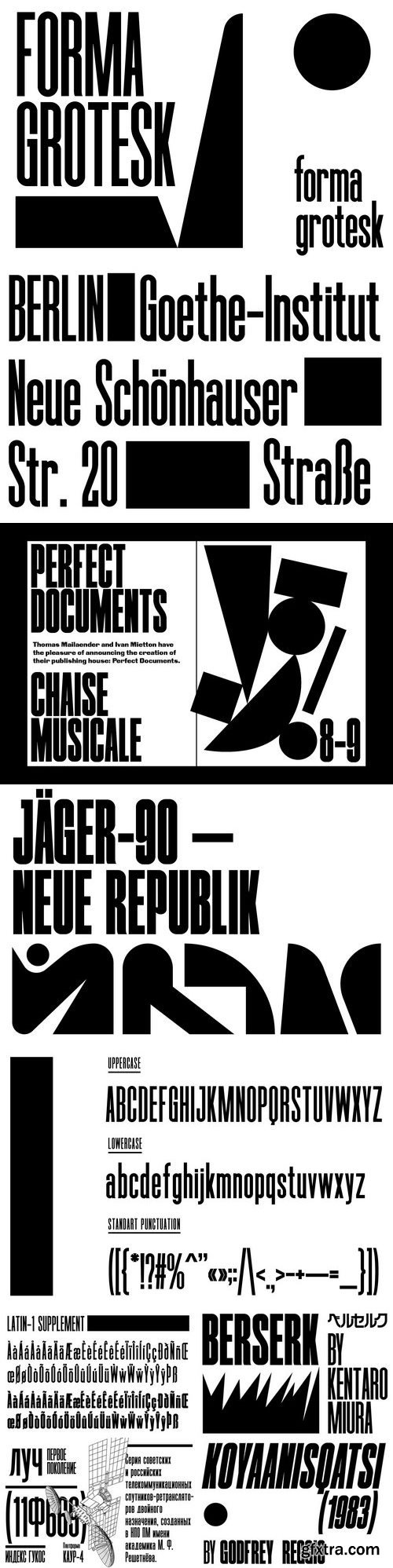
Forma Grotesk is an extra condensed font, created to grab your full attention. It is best suited for posters, magazine spreads and movie credits. The font is tall, dence and massive, but still playful. Latin and Cyrillic alphabet, lowercase, uppercase. Two weights — regular and bold. TTF and OTF font formats. This purchase includes a license for use with a single computer, and allows you to create an unlimited number of designs, logos, and similar works. See Creative Market’s license page for more information. Your download also includes webfont files (for testing only, not for live websites). Full web licenses and extended licenses are available for purchase – please contact me for more details.